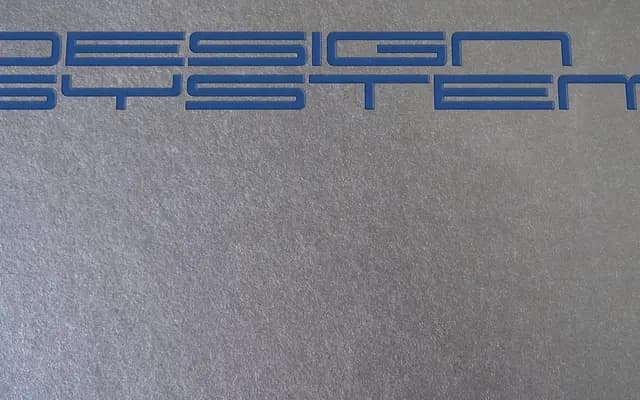
Design System specimen from Dharma Type
A 70-style square geometric sans spanning five weights and seven widths, built for mixing across titles, logos and text.
Covering five weights and seven widths from ultra condensed to ultra wide, the family gives designers 70 harmoniously drawn styles to combine freely. The square, minimal forms carry a faint 1970s flavour without leaning heavily on retro styling. All widths and weights are intended to work together, making it practical for variable-width layouts and multi-weight typographic systems.
A square, geometric sans-serif with a 1970s influence, spanning five weights and seven widths from condensed to ultra-wide; clean minimal forms place it firmly in the geometric sans tradition.